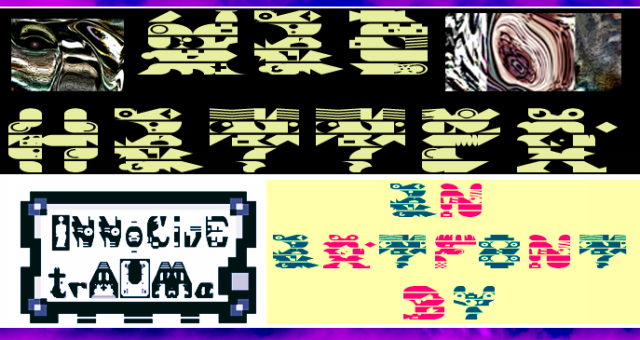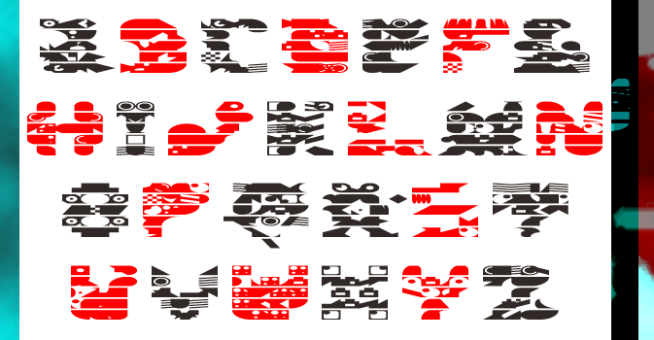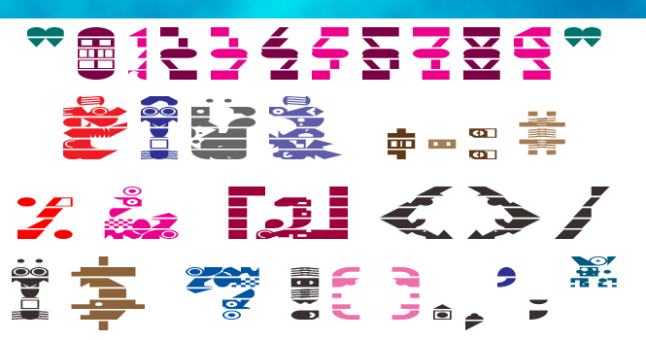
trAUMa 41 / Mad Hatter
"Mad Hatter", like all the "trAUMa" series, works at the frontier between Art & Type Design, Figuration & Abstraction, each font is a comprehensive world in which every glyph is a "living" entity. But put together they can produce your messages in the most accurate way.